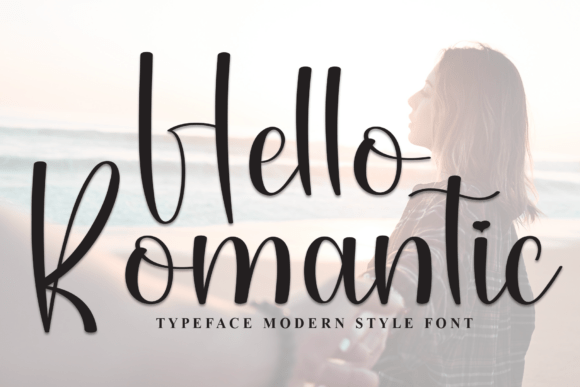
Hello Romantic Font: Elevate Your Designs with Elegance and Playfulness
In the world of typography, fonts play a crucial role in conveying the tone and personality of a design. Among the numerous fonts available, Hello Romantic stands out as a stylish handwritten script font that seamlessly blends modern elegance with a playful touch. This versatile typeface is perfect for designers looking to add a personal feel to their projects, making it ideal for logos, packaging, and invitations.
What is Hello Romantic Font?
Hello Romantic is a carefully crafted handwritten script font that exudes warmth, sophistication, and creativity. Its fluid strokes and charming curves bring a sense of personality to any design, making it perfect for projects that require a touch of elegance and playfulness. The font’s modern aesthetic ensures that it remains fresh and relevant, while its classic feel makes it suitable for a wide range of applications.
Key Features of Hello Romantic Font
- Fluid Strokes: The font features smooth, flowing strokes that give it a natural and effortless look.
- Charming Curves: The curves in Hello Romantic are carefully designed to add a touch of playfulness and whimsy to any design.
- Modern Elegance: The font’s modern aesthetic ensures that it remains fresh and relevant, making it perfect for contemporary designs.
- Playful Touch: The playful elements in the font add a sense of fun and creativity to any project.
- Versatility: Hello Romantic is suitable for a wide range of applications, from logos and packaging to invitations and more.
Uses of Hello Romantic Font
Hello Romantic is an incredibly versatile font that can be used in various design projects. Some of the most popular uses of this font include:
- Logo Design: The font’s elegant and playful feel makes it perfect for logos that require a touch of sophistication and creativity.
- Packaging Design: Hello Romantic can add a personal touch to packaging designs, making products stand out on store shelves.
- Invitations: The font’s charming curves and fluid strokes make it ideal for invitations, such as wedding invites, birthday parties, and more.
- Social Media Graphics: Hello Romantic can add a touch of elegance and playfulness to social media graphics, making them more engaging and shareable.
- Advertising: The font’s modern aesthetic and classic feel make it suitable for advertising campaigns that require a sense of sophistication and creativity.
Benefits of Using Hello Romantic Font
Using Hello Romantic in your designs can bring numerous benefits, including:
- Unique Personality: The font’s elegant and playful feel can add a unique personality to your designs, setting them apart from others.
- Emotional Connection: Hello Romantic can help create an emotional connection with your audience, making your designs more relatable and engaging.
- Versatility: The font’s versatility ensures that it can be used in various design projects, from logos and packaging to invitations and more.
- Time-Saving: With Hello Romantic, you can save time and effort in designing, as the font’s elegant and playful feel can instantly elevate your projects.
- Professional Look: The font’s modern aesthetic and classic feel can give your designs a professional look, making them more suitable for businesses and brands.
How to Use Hello Romantic Font
Using Hello Romantic in your designs is easy and straightforward. Here are some tips to get you started:
- Choose the Right Size: Experiment with different font sizes to find the perfect fit for your design.
- Pair with Other Fonts: Hello Romantic can be paired with other fonts to create a unique and visually appealing combination.
- Adjust the Color: Experiment with different colors to find the perfect match for your design.
- Experiment with Styles: Hello Romantic comes in various styles, so experiment with different styles to find the one that suits your design best.
Hello Romantic is a stylish handwritten script font that blends modern elegance with a playful touch. Its fluid strokes and charming curves bring a personal feel to any design, making it perfect for logos, packaging, and invitations. With its versatility, unique personality, and emotional connection, Hello Romantic is an excellent choice for designers looking to elevate their designs. Whether you’re a seasoned designer or just starting out, Hello Romantic is a must-have font in your collection.
- What is Hello Romantic font? Hello Romantic is a stylish handwritten script font that blends modern elegance with a playful touch.
- What is Hello Romantic font used for? Hello Romantic is suitable for a wide range of applications, including logos, packaging, invitations, social media graphics, and advertising.